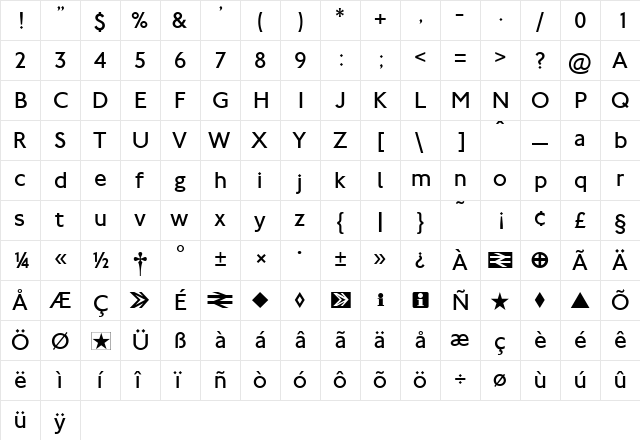
NJLight Regular Font Preview
NJLight Regular
Design Context for NJLight Typeface
NJLight offers clean, dependable letterforms without strong stylistic allegiance, making it a practical choice for designers who need flexibility. Its slender proportions lend an understated elegance to any composition.